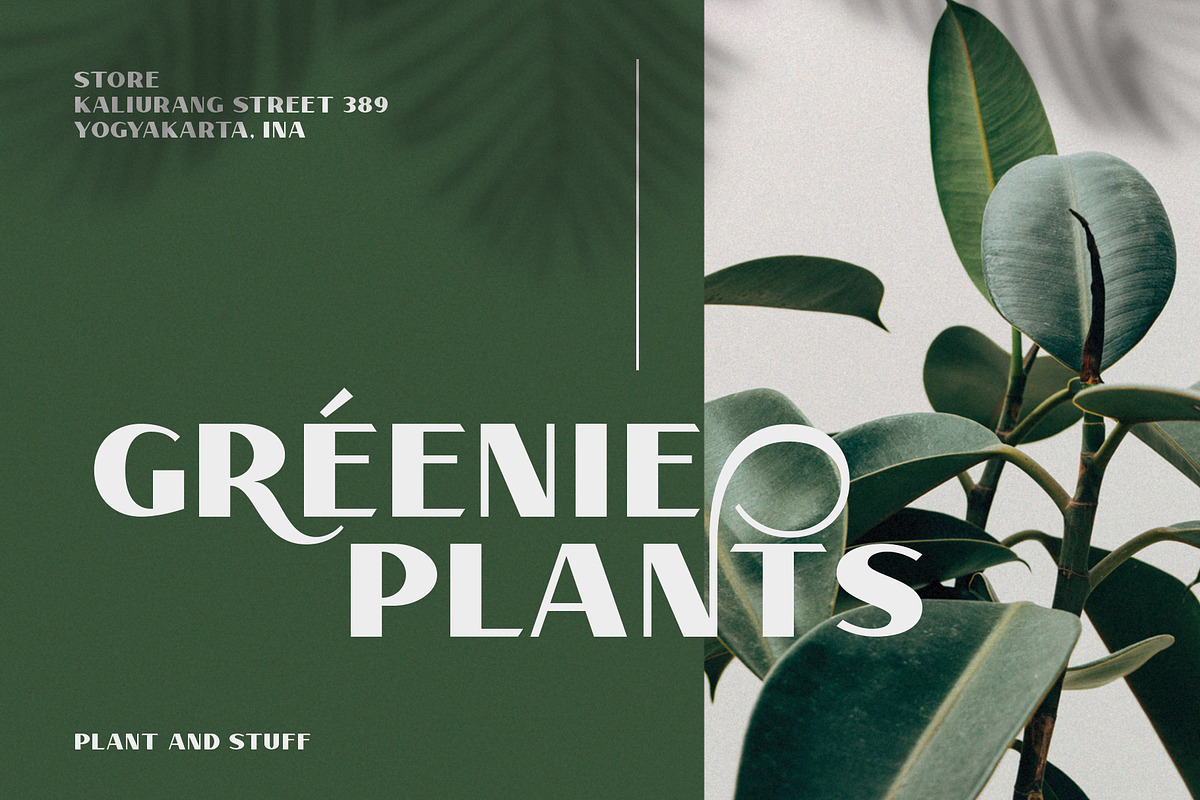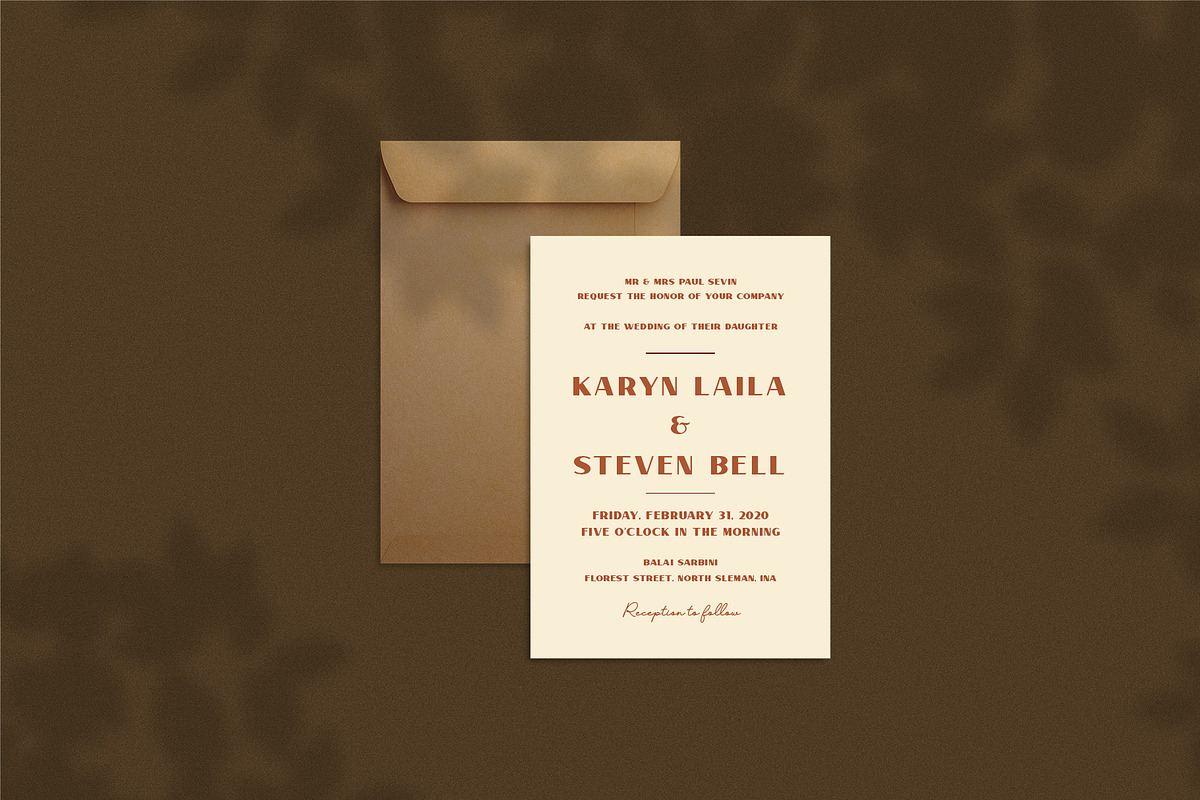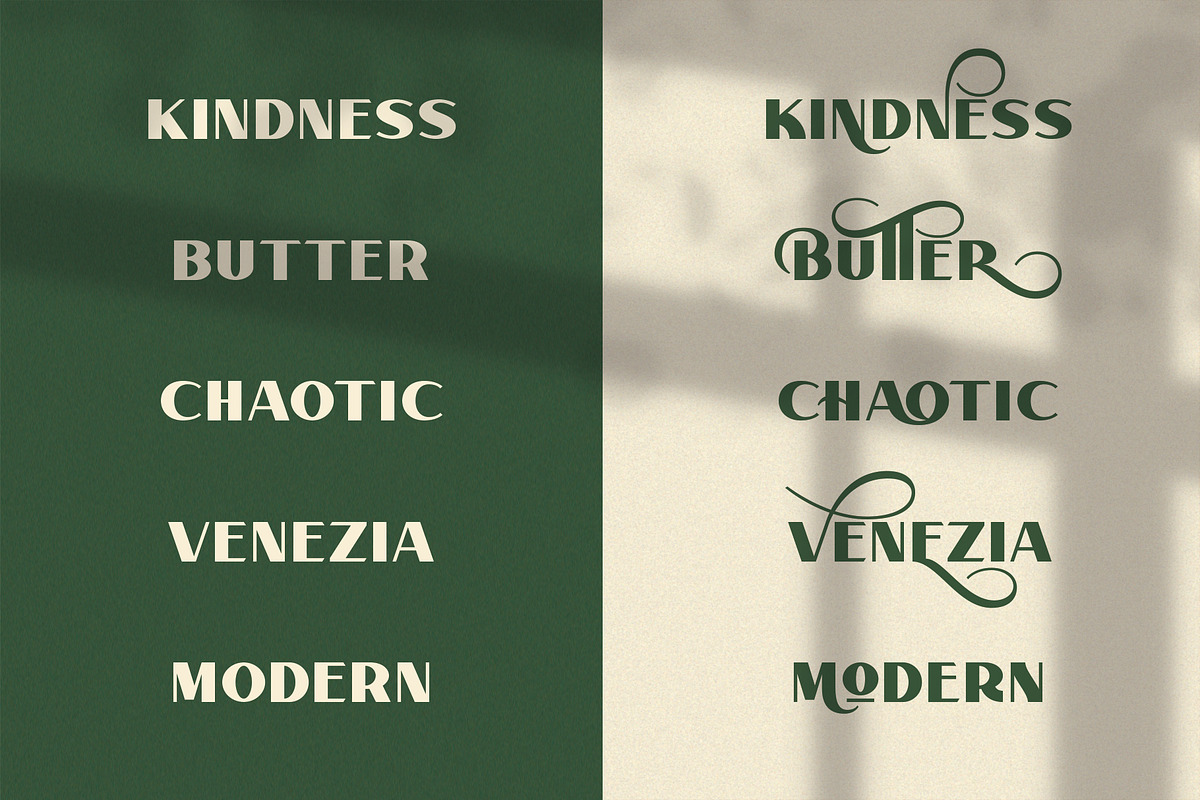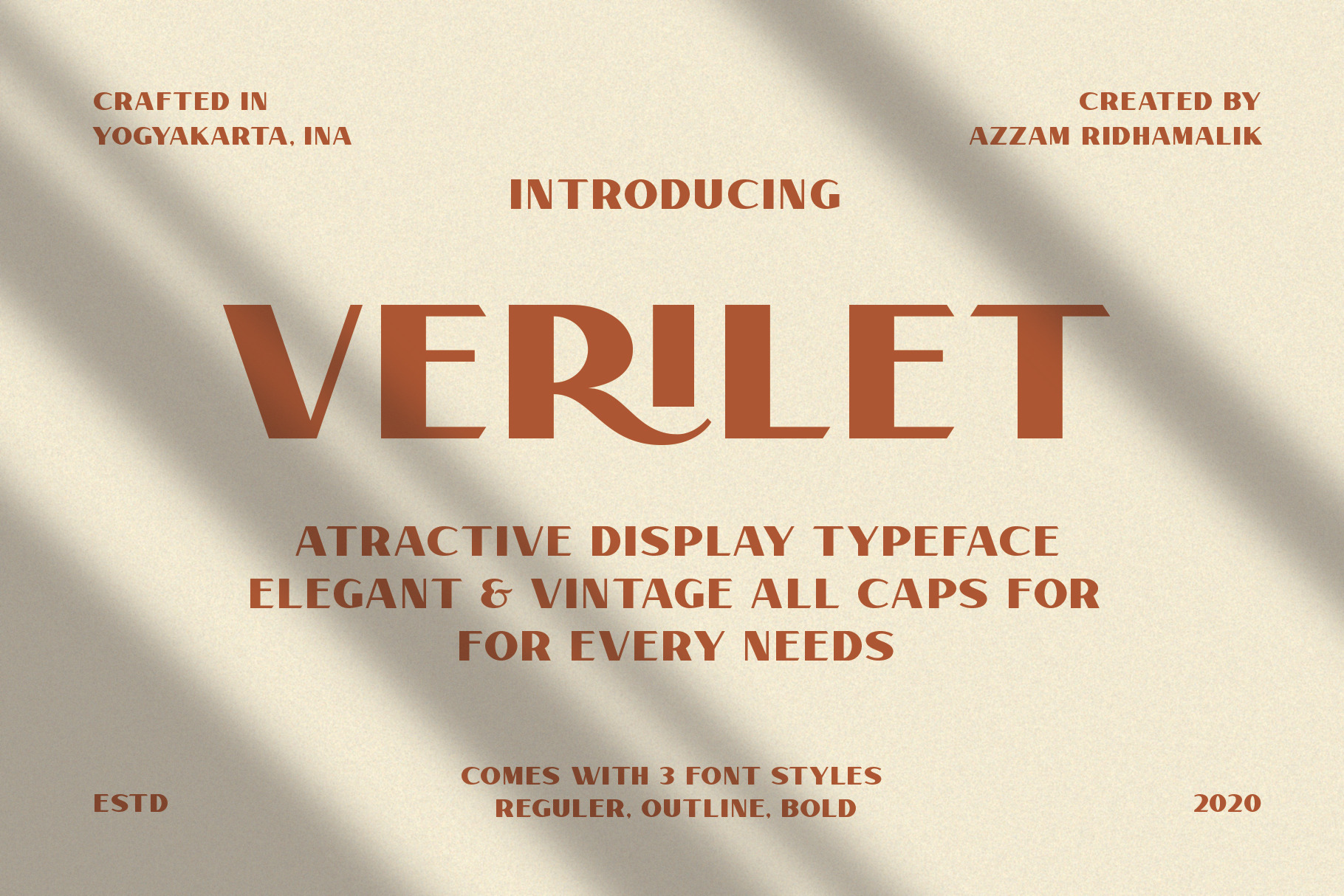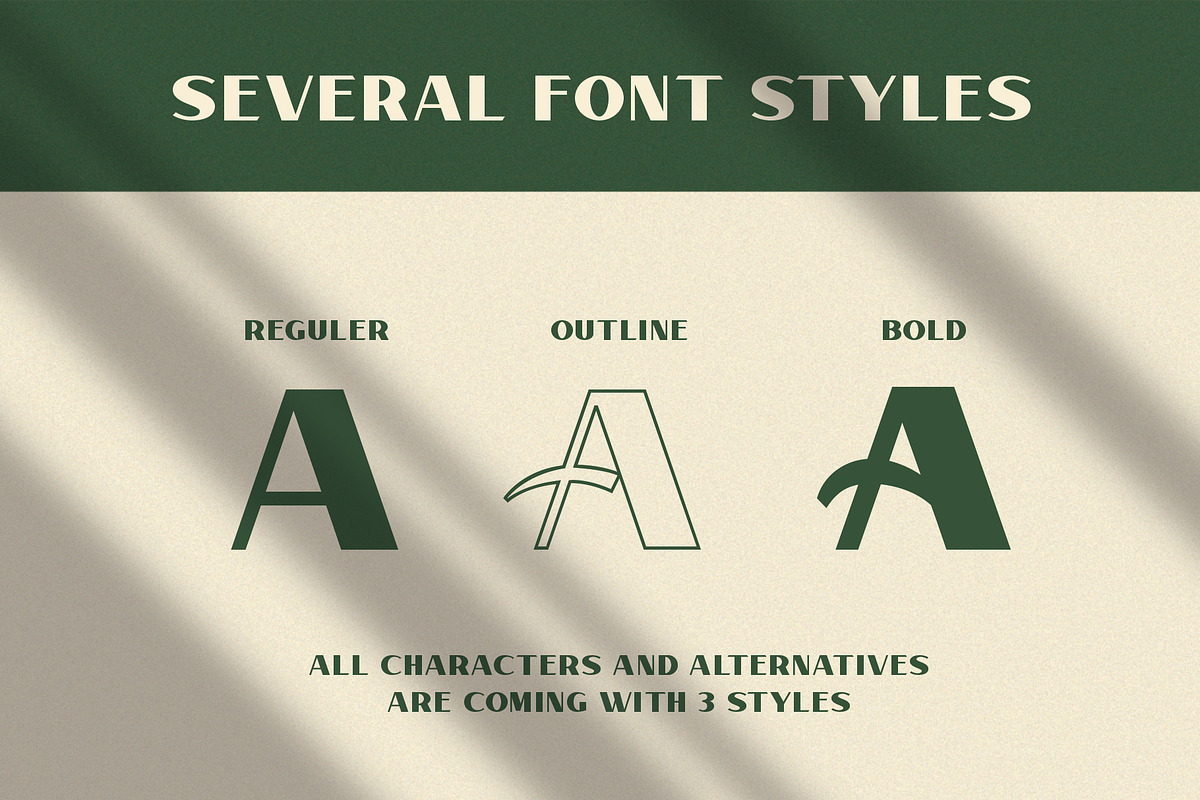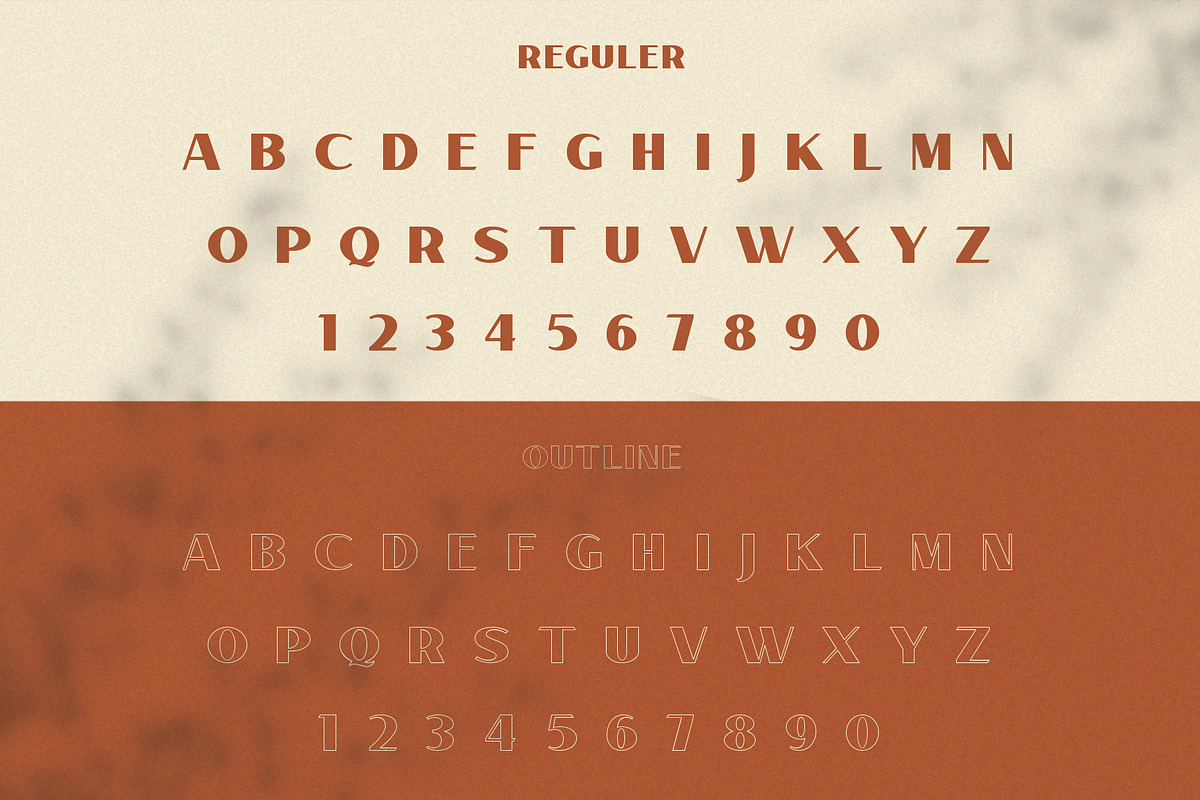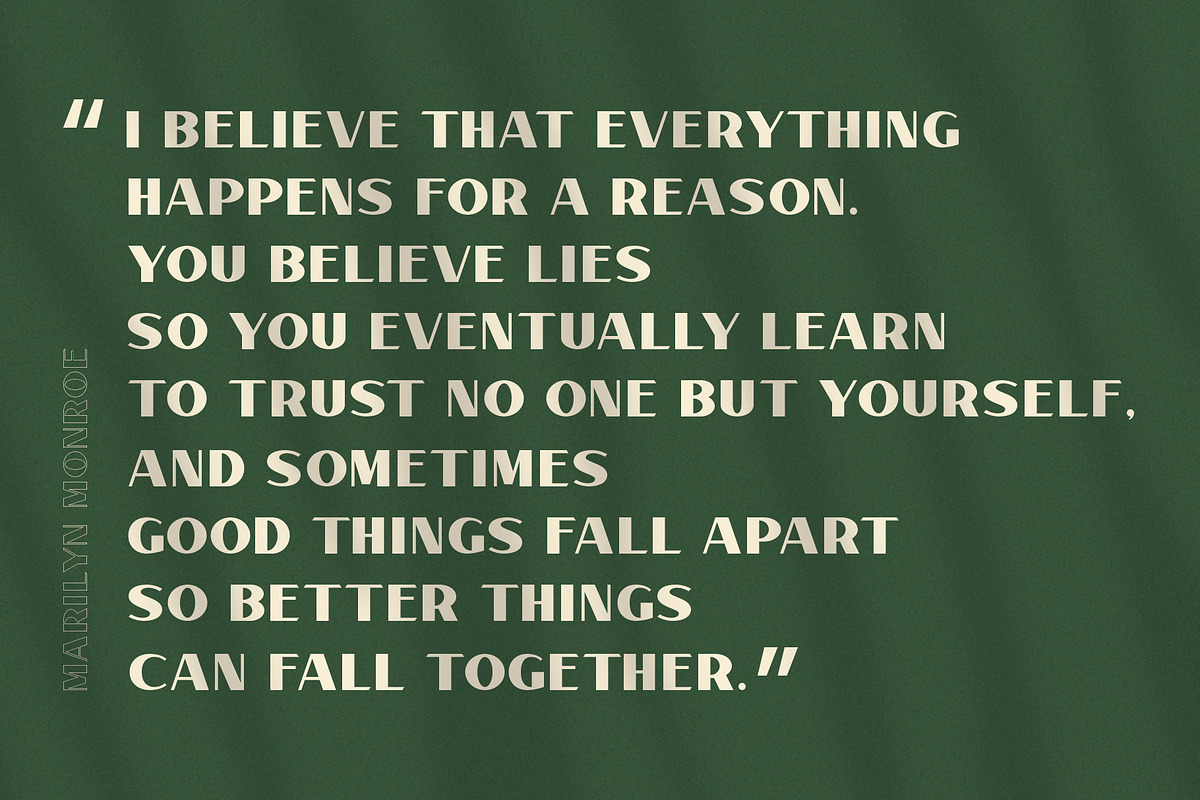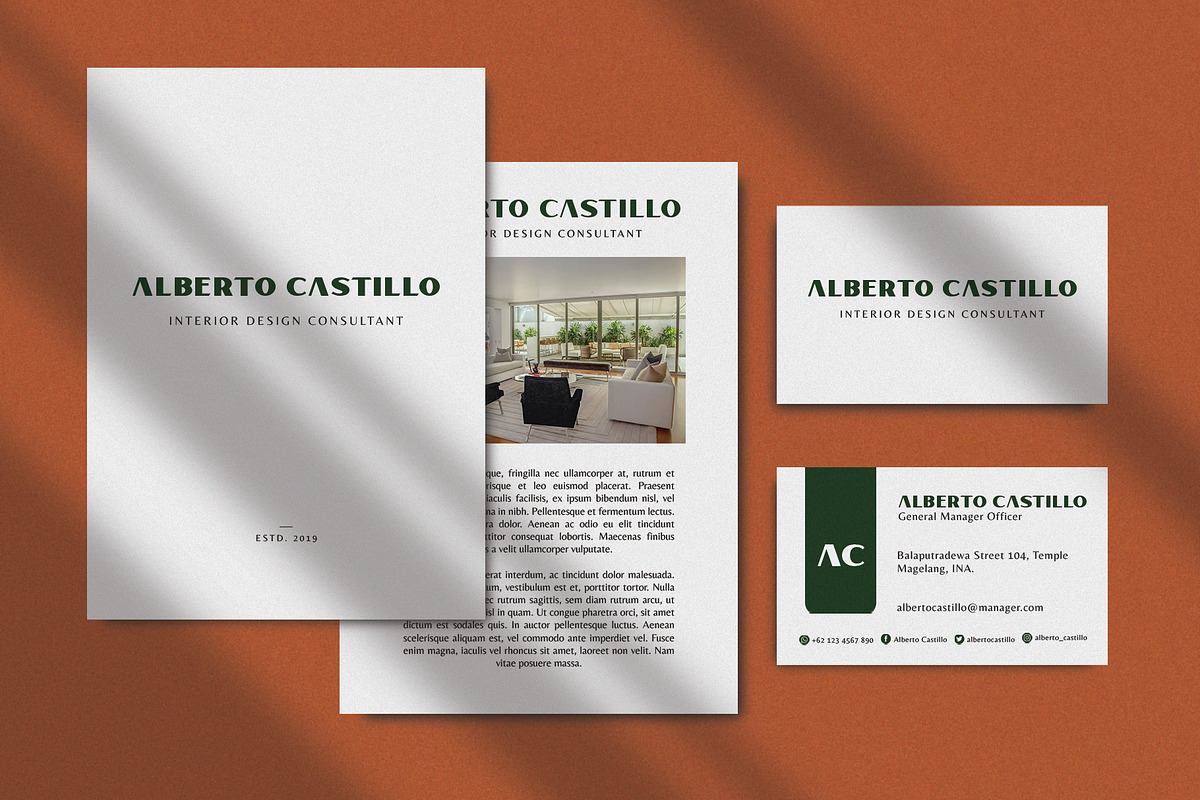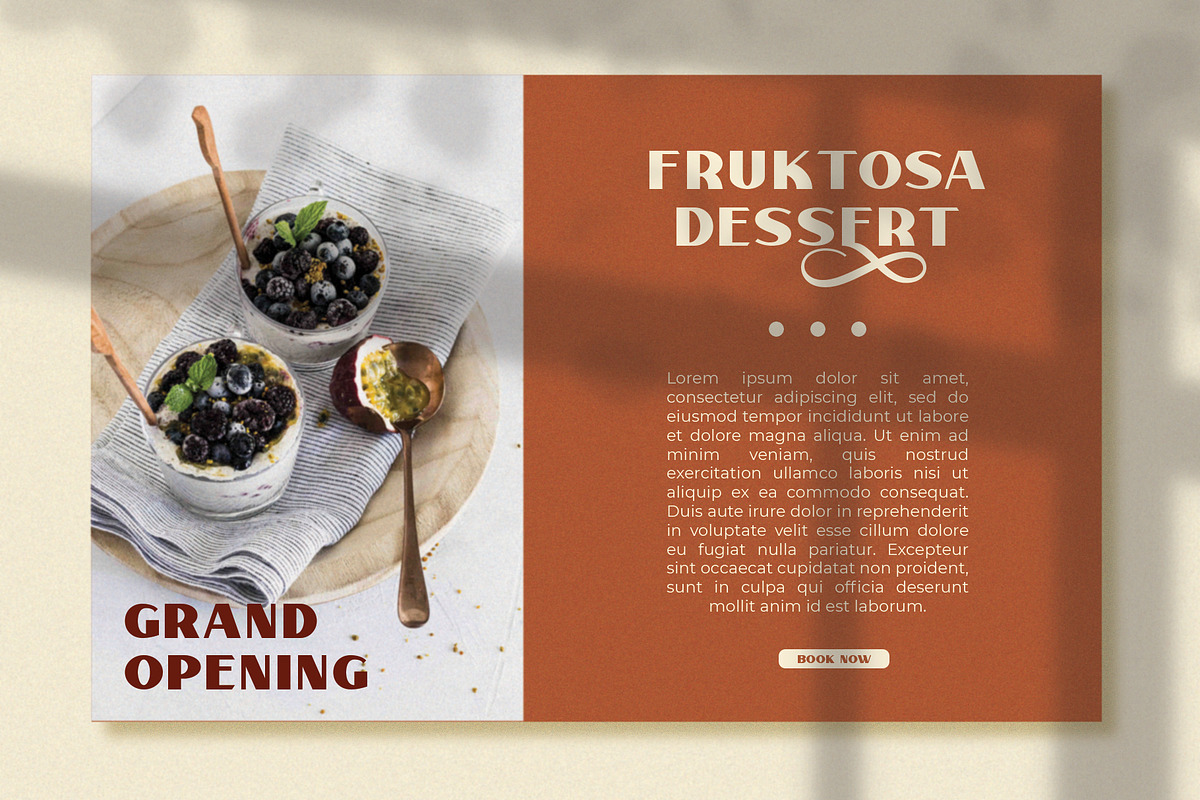
Verilet - Elegant Sans Serif Font
Verilet is elegant and semi-vintage display typeface that looks stunning in just about every context. Very suitable as to make a design choice such as logos, branding, magazines, headlines, websites, packaging, wedding cards and more creative project!
All-caps characters, with over 400 glyphs VERILET's also has a lot of alternative characters. It looks really cool when elegant meet vintage to any piece.
- Number & Punctuation
- Ligatures & Stylistic Alternates